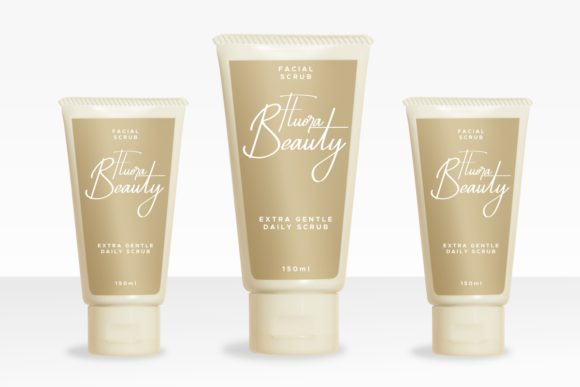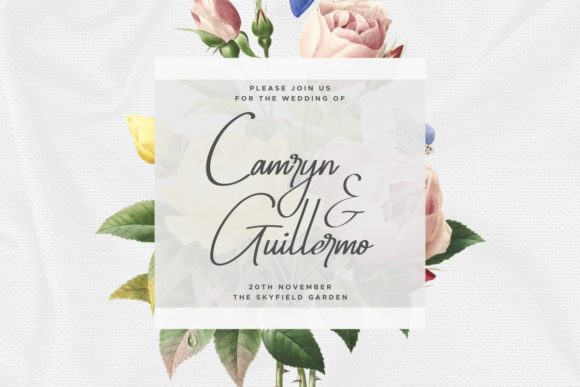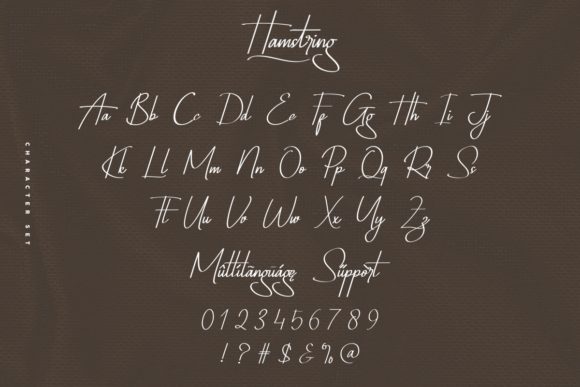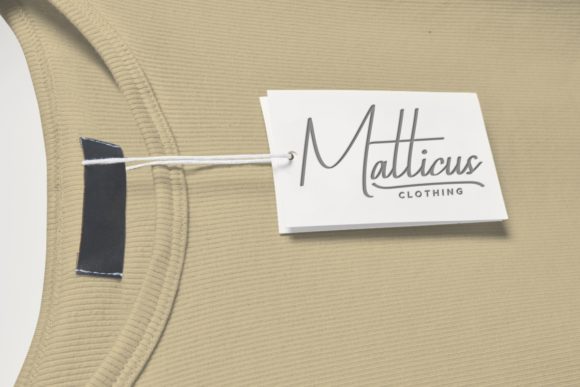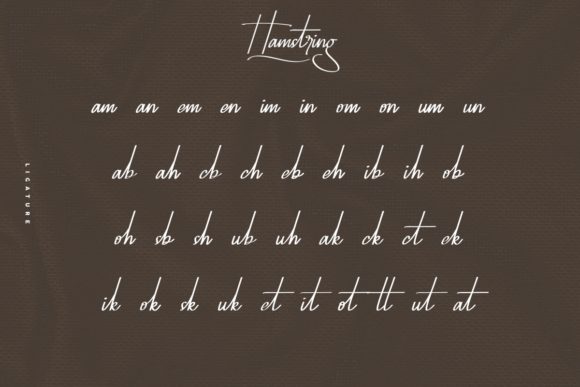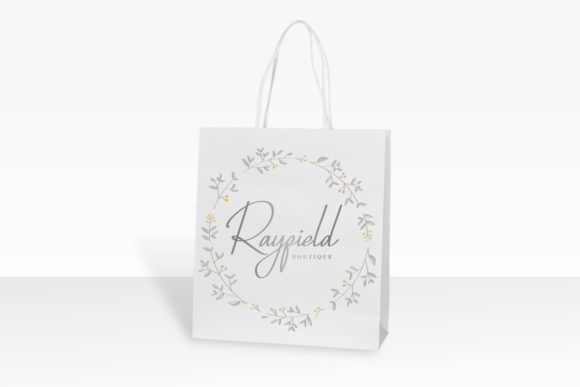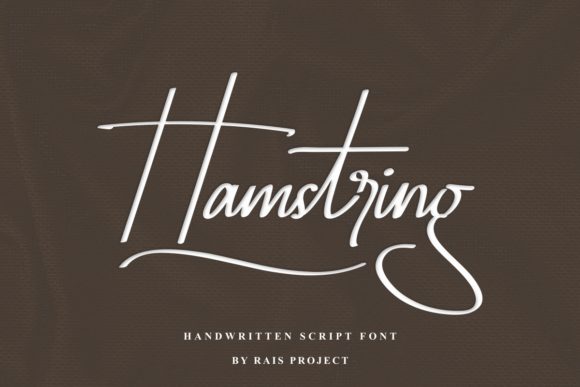
Introducing Hamstring Font: Elevate Your Designs with Elegance
In the world of typography, a font can make or break the aesthetic of a design. For those seeking a stylish and delicate script font, Hamstring Font is an excellent choice. This beautiful font boasts a clean, thin, and smooth vibe that is sure to elevate any design it’s added to. Whether you’re a professional designer or a crafty DIY enthusiast, Hamstring Font is a versatile and elegant addition to your typography toolkit.
What Makes Hamstring Font Special?
Hamstring Font stands out for its refined and sophisticated appearance. Its slender lines and smooth curves create a visually appealing effect that can add a touch of elegance to various design projects. Here are a few key features that make Hamstring Font a must-have:
- Clean and Thin Design: The font’s sleek and streamlined design makes it perfect for projects where a subtle yet impactful typography is needed.
- Smooth Vibe: The smooth curves and lines of Hamstring Font ensure that your designs look polished and professional.
- PUA Encoded: Being PUA (Private Use Area) encoded, Hamstring Font offers easy access to all glyphs and swashes, allowing for greater flexibility and creativity in your designs.
Hamstring Font’s versatility makes it suitable for a wide range of design projects. Here are some ideas on how you can use this beautiful font:
- Branding and Logos: Add a touch of elegance to your brand’s identity with Hamstring Font. Its stylish appearance makes it perfect for creating sophisticated logos.
- Stationery and Invitations: Whether you’re designing wedding invitations, greeting cards, or personal stationery, Hamstring Font can add a delicate and refined touch.
- Web Design: Use Hamstring Font to create visually appealing headings and titles for your website, adding a professional and stylish flair to your web design.
- Social Media Graphics: Enhance your social media presence with eye-catching graphics featuring Hamstring Font. It’s perfect for creating engaging posts and stories.
- Crafting and DIY Projects: If you’re into crafting or DIY projects, Hamstring Font can be a great addition to your design toolkit. Use it to create beautiful signs, labels, or decorative items.
How to Make the Most of Hamstring Font
To fully leverage the potential of Hamstring Font, here are some tips:
- Experiment with Swashes: With its PUA encoding, Hamstring Font comes with a variety of swashes and glyphs. Experiment with these to add unique touches to your designs.
- Combine with Other Fonts: Don’t be afraid to pair Hamstring Font with other fonts to create interesting contrasts and hierarchies in your designs.
- Adjust Font Sizes: Play around with different font sizes to emphasize certain parts of your text and create visual interest.
Hamstring Font is a stylish and delicate script font that can add a touch of elegance to any design project. Its clean, thin, and smooth vibe, combined with PUA encoding for easy access to glyphs and swashes, makes it a versatile and valuable addition to any designer’s or crafter’s toolkit. Whether you’re working on branding, stationery, web design, or crafting projects, Hamstring Font is sure to impress. So, why wait? Incorporate Hamstring Font into your next design project and witness the transformative power of beautiful typography.